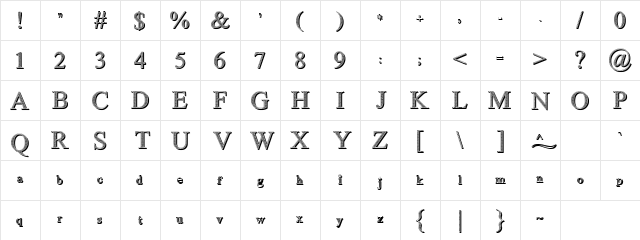
Candy_Girl_ is a composed and adaptable typeface that performs quietly and consistently across a wide range of design contexts.
Pro Tip: Use Candy_Girl_ in both headline and body roles to test its range before committing to a single application.